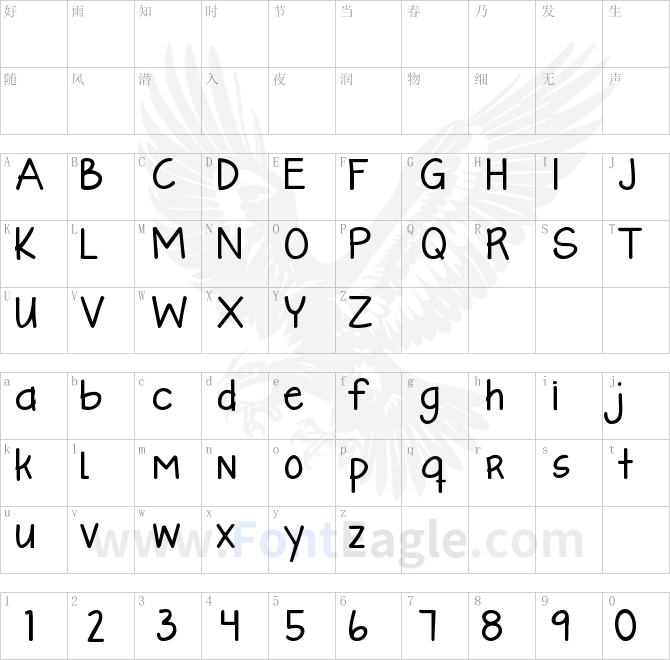
- Font name:KG Like A Skyscraper
- Font Subfamily ID:KimberlyGeswein: KG Like A Skyscraper Bold: 2011
- Font Full Name:KG Like A Skyscraper Bold
- Postscript:KGLikeASkyscraper-Bold